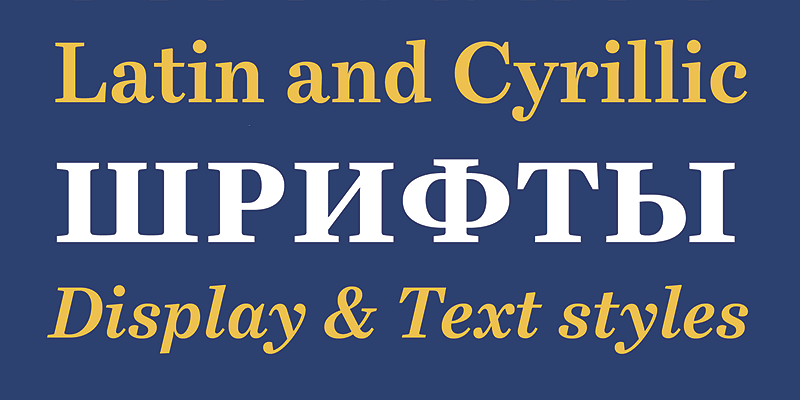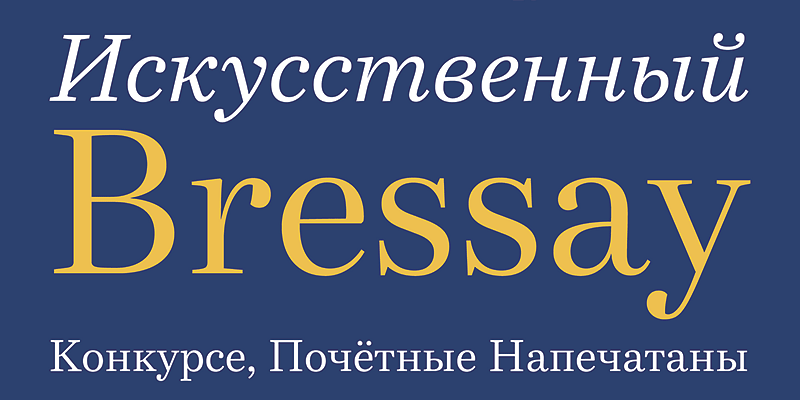
Bressay is a beautiful example of the Scotch Roman style of typefaces. Exuding craftsmanship, every detail can be enjoyed for its simplicity and purpose, from body text to headline.